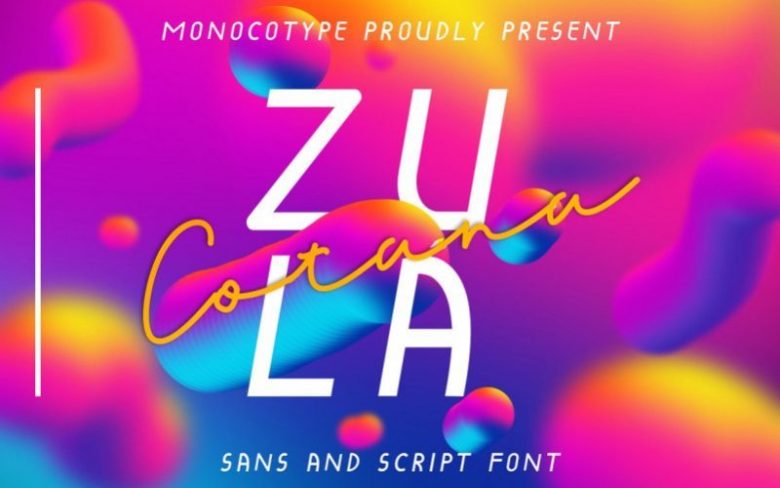
Zula Cotana Duo Font
Zula Cotana is duo font that have urban and modern feeling also give nice vibe to your project. comes with script and sans that perfect paired each other and also with bonus logo that can you customize.